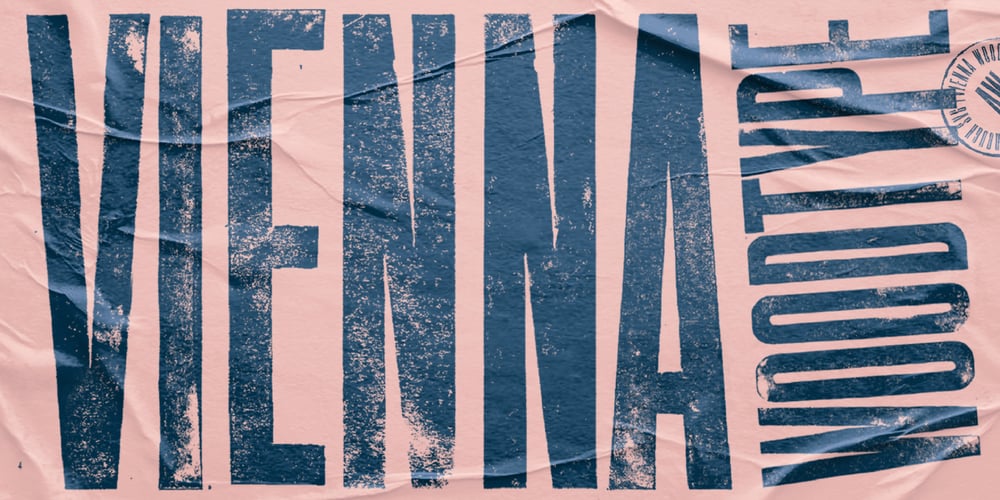
Vienna Woodtype Font Family was designed by Christoph Zeugswetter and published by XTOPH. Vienna Woodtype contains 2 styles and family package options. This font is based on real prints made out of a linocut. The glyphs were handprinted, then scanned and then turned into a computer font.